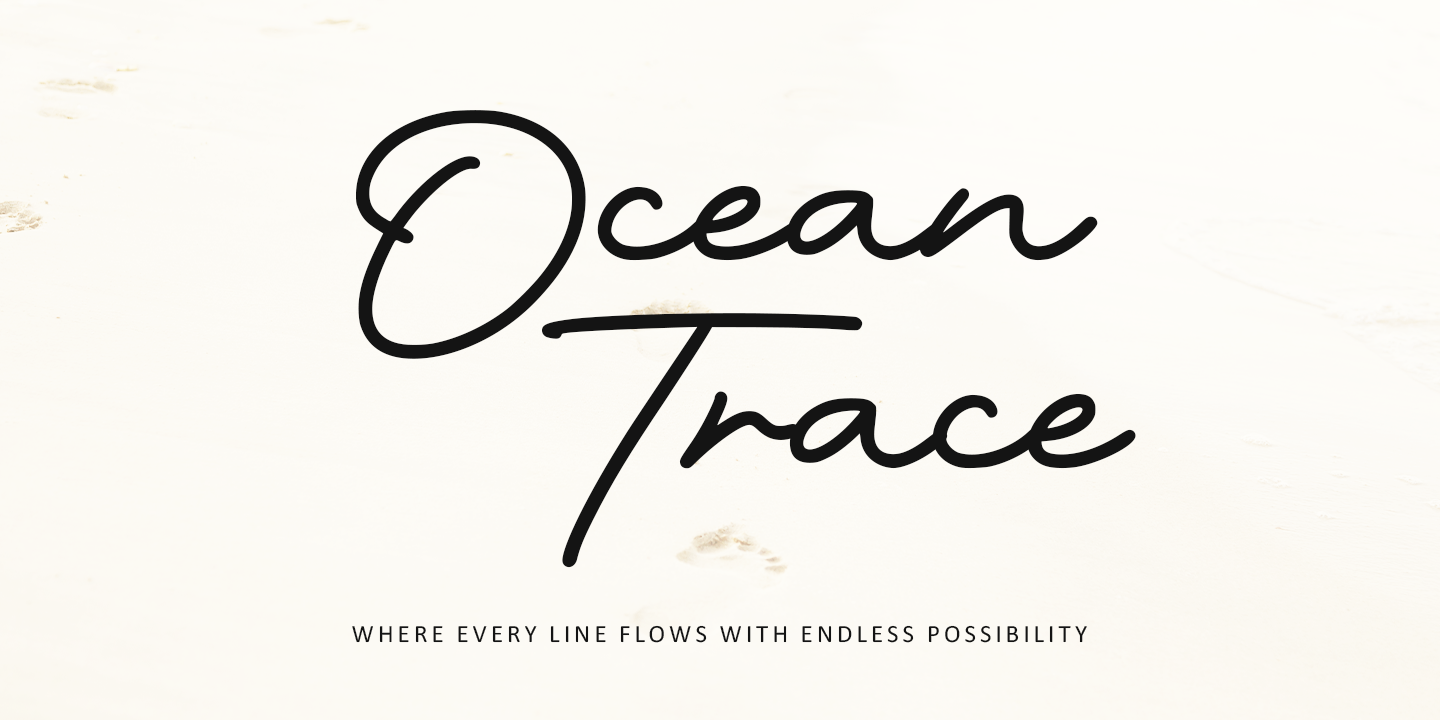
Dive into fluid elegance with Ocean Trace Font Free Download – a mesmerizing script typeface inspired by the rhythmic motion of ocean waves. This beautifully crafted font captures the organic flow of water with its smooth, interconnected letterforms, perfect for beachside branding, nautical designs, and any project needing coastal charm with sophisticated execution.
Why Ocean Trace Font Stands Out
Ocean Trace Font Free Download delivers:
Seamless wave-like letter connections
Natural stroke variations mimicking water movement
Multiple stylistic alternates for customization
Perfect balance of artistry and readability
Ocean Trace Font Free Download Technical Features:
Complete uppercase and lowercase characters
Extensive swash and alternate glyphs
Coastal Applications:
Beach resort branding
Nautical wedding invitations
Seafood restaurant graphics
Surf/sportswear labels
Travel and tourism promotions
Design Tip: Enhance the aquatic effect by pairing with subtle wave vector elements and oceanic blue gradients!